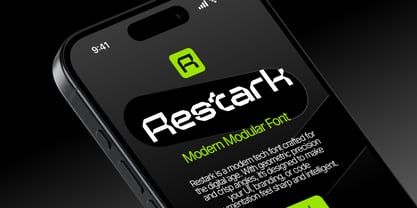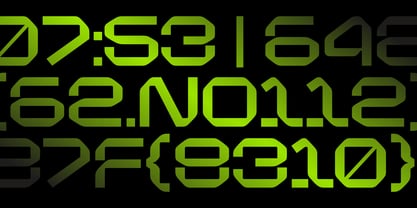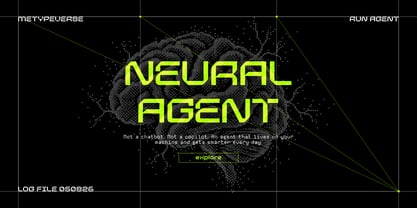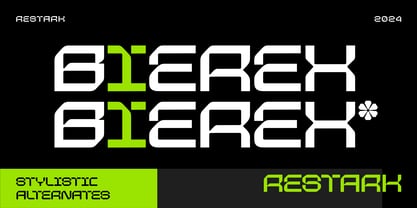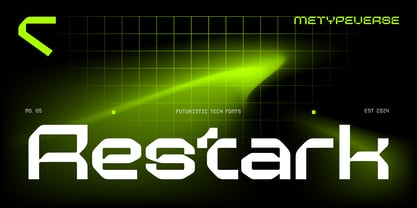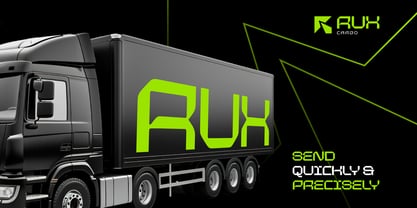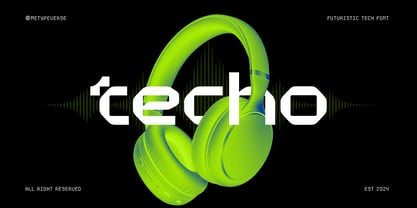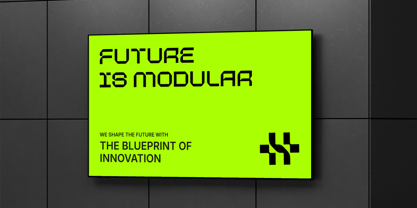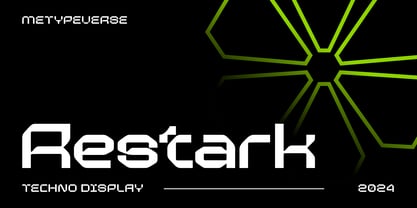
Restark
von Metypeverse
Die Schriftfamilie Restark wurde von Mohamad Ridwan entworfen und von Metypeverse veröffentlicht. Restark enthält 4 Stile und Familienpaketoptionen. Mehr über diese Familie
Modern doesn’t have to mean predictable.
Restark combines bold modular forms with a clean, structured feel to give logos, apps, digital products, interfaces, and tech branding a more distinctive visual identity. It feels polished enough for professional use, but unconventional enough to stand apart from familiar geometric sans-serifs.
Made for brands that want to look current without blending in, Restark helps your typography feel sharper, more intentional, and easier to recognize.
Designer: Mohamad Ridwan
Foundry: Metypeverse